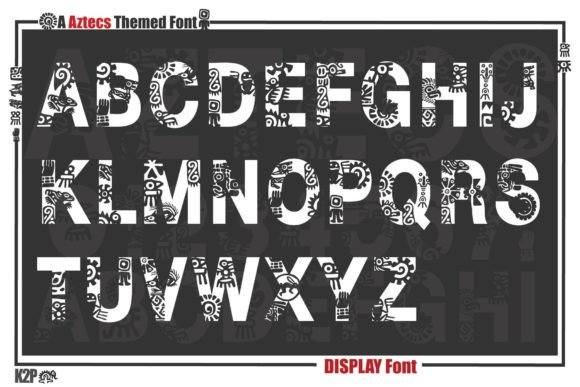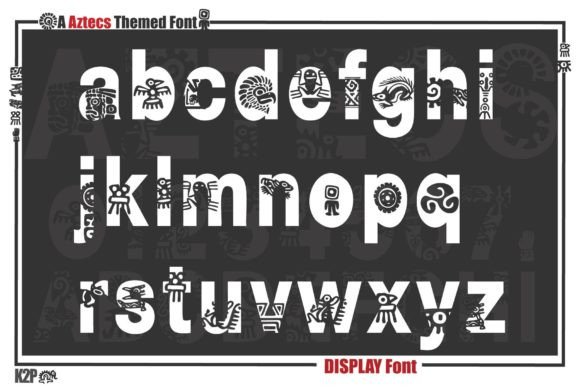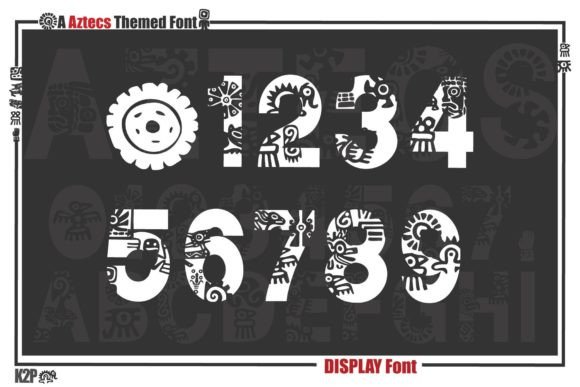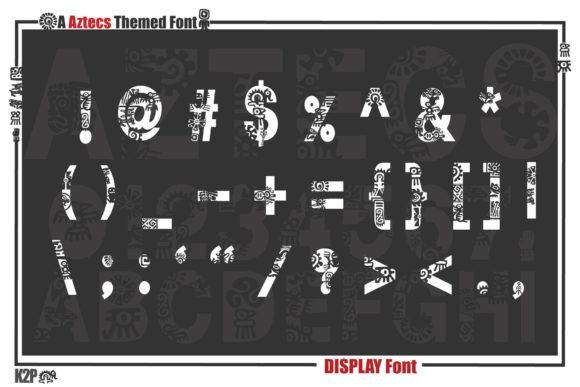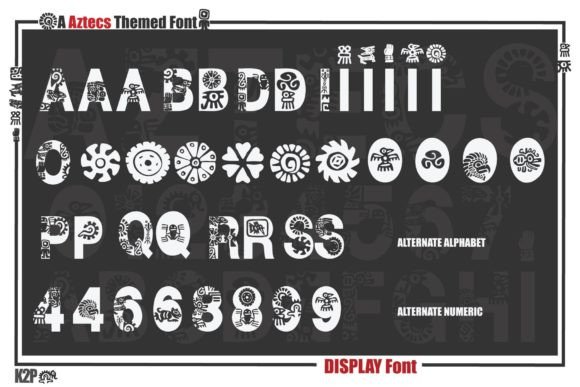
Introducing Aztecs Font: The Bold and Assertive Decorative Font for Your Creative Projects
Are you a designer or crafter looking for a font that can add a touch of boldness and assertiveness to your creative projects? Look no further than Aztecs Font! This decorative font is perfect for a wide range of design ideas, from fishing and camping to traveling and more. In this article, we’ll take a closer look at Aztecs Font, its features, and how you can use it to elevate your designs.
What is Aztecs Font?
Aztecs Font is a bold and assertive decorative font that is designed to make a statement. Its unique and eye-catching design makes it perfect for a variety of creative projects, including posters, flyers, brochures, and more. Whether you’re a designer, crafter, or DIY enthusiast, Aztecs Font is a great addition to your font library.
Key Features of Aztecs Font
So, what makes Aztecs Font so special? Here are some of its key features:
• Bold and Assertive Design: Aztecs Font has a bold and assertive design that is sure to grab attention. Its unique and eye-catching design makes it perfect for a wide range of creative projects.
• PUA Encoded: Aztecs Font is PUA encoded, which means you can access all of the glyphs and swashes with ease. This makes it easy to customize your designs and add your own personal touch.
• Perfect for Outdoor and Adventure Designs: Aztecs Font is perfect for designs related to fishing, camping, traveling, and more. Its bold and assertive design makes it ideal for creating eye-catching posters, flyers, and brochures.
How to Use Aztecs Font in Your Designs
Using Aztecs Font in your designs is easy! Here are some tips to get you started:
• Pair it with Other Fonts: Aztecs Font pairs well with other fonts, including sans-serif and script fonts. Experiment with different font combinations to create a unique and eye-catching design.
• Use it for Headlines and Titles: Aztecs Font is perfect for headlines and titles. Its bold and assertive design makes it easy to read and understand, even at a distance.
• Add Glyphs and Swashes: With Aztecs Font being PUA encoded, you can easily access all of the glyphs and swashes to add a personal touch to your designs.
Benefits of Using Aztecs Font
So, why should you use Aztecs Font in your designs? Here are some benefits:
• Stand Out from the Crowd: Aztecs Font is a unique and eye-catching font that is sure to grab attention. Use it to stand out from the crowd and create designs that are memorable.
• Save Time and Effort: With Aztecs Font being PUA encoded, you can easily access all of the glyphs and swashes, saving you time and effort in the design process.
• Perfect for a Wide Range of Designs: Aztecs Font is perfect for a wide range of designs, from posters and flyers to brochures and more.